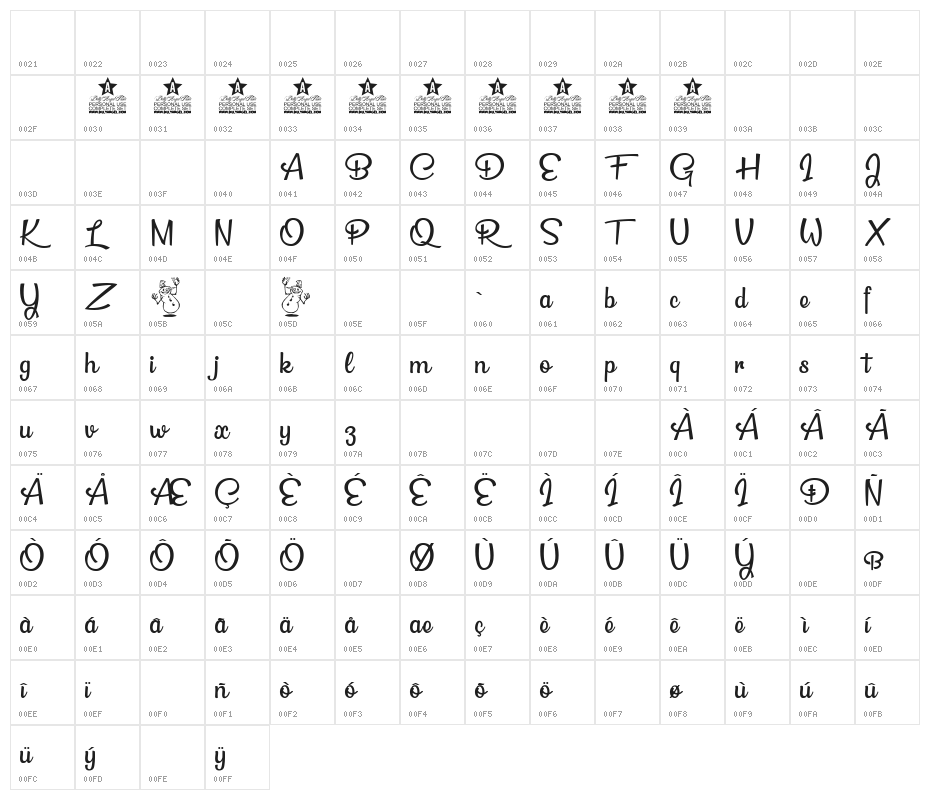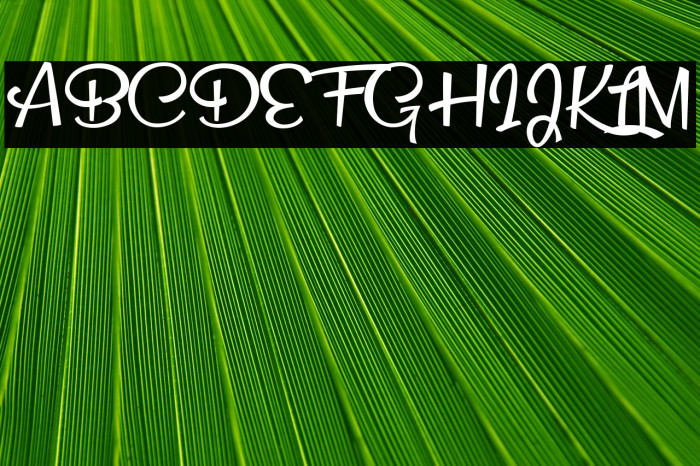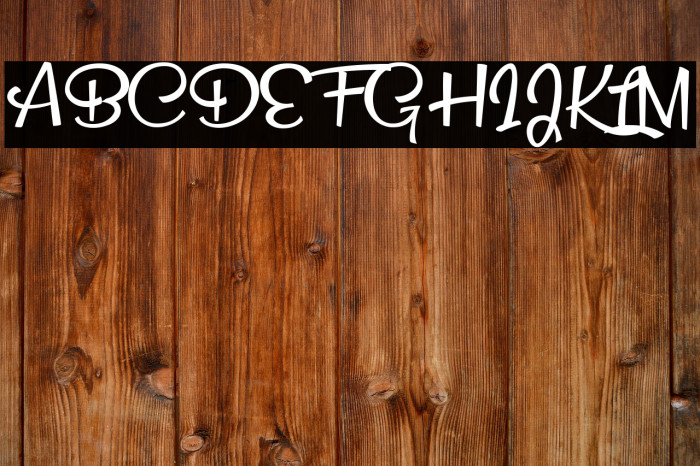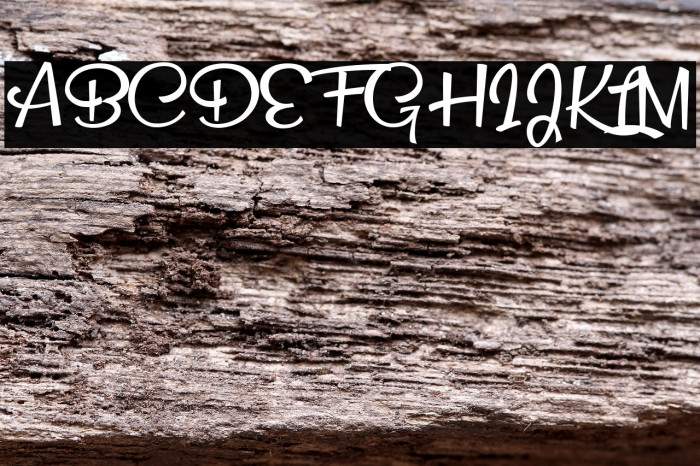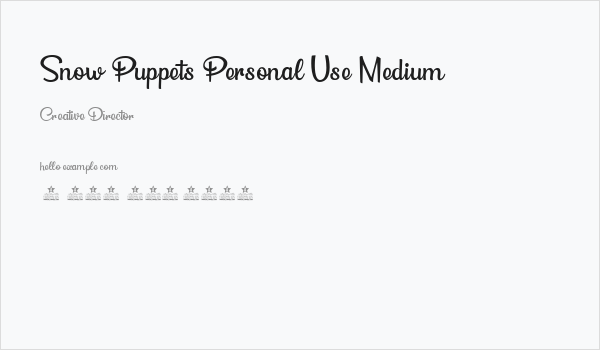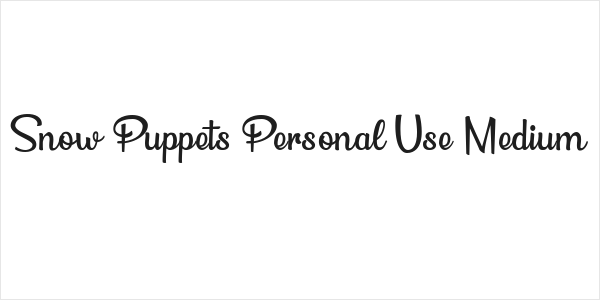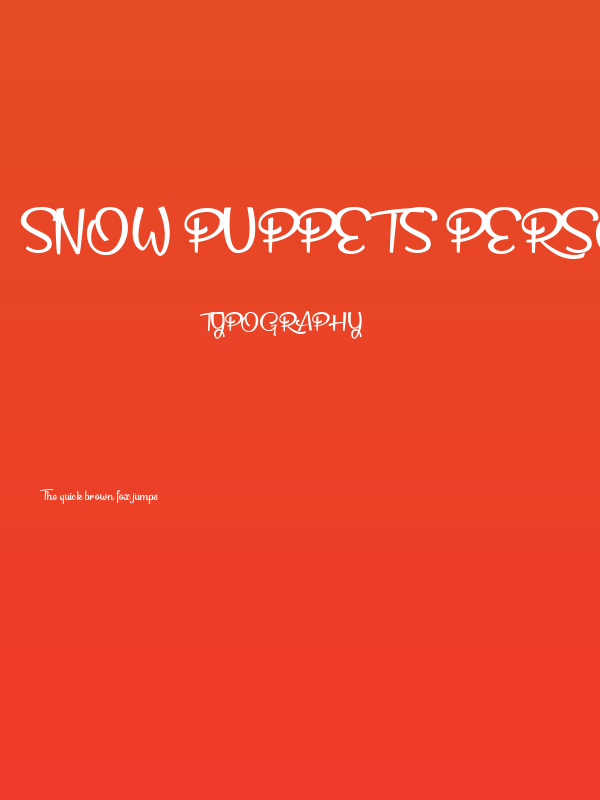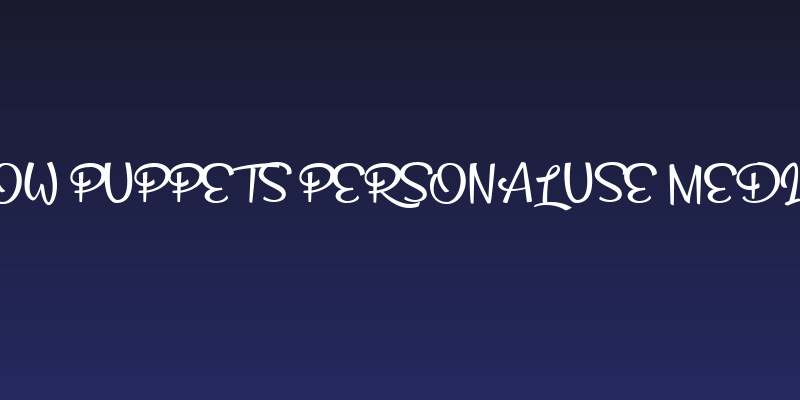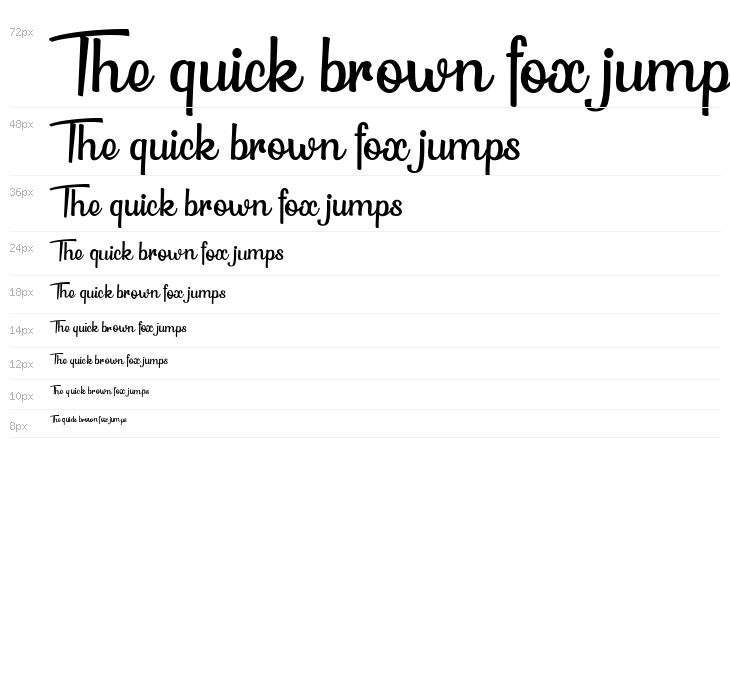
Snow Puppets Personal Use Medium Font
Snow Puppets Personal Use Medium Description
This font features a playful and whimsical style, characterized by its flowing, cursive-like uppercase letters and smooth, rounded lowercase letters. The uppercase letters have a unique flair with exaggerated loops and curves, giving them a lively appearance. The lowercase letters maintain a consistent stroke width, contributing to a harmonious and balanced look. The font's overall design is both decorative and legible, making it suitable for creative and informal applications. The special characters, including symbols like $, ?, &, %, !, #, *, and =, are designed to match the playful aesthetic, ensuring a cohesive look across all text elements.